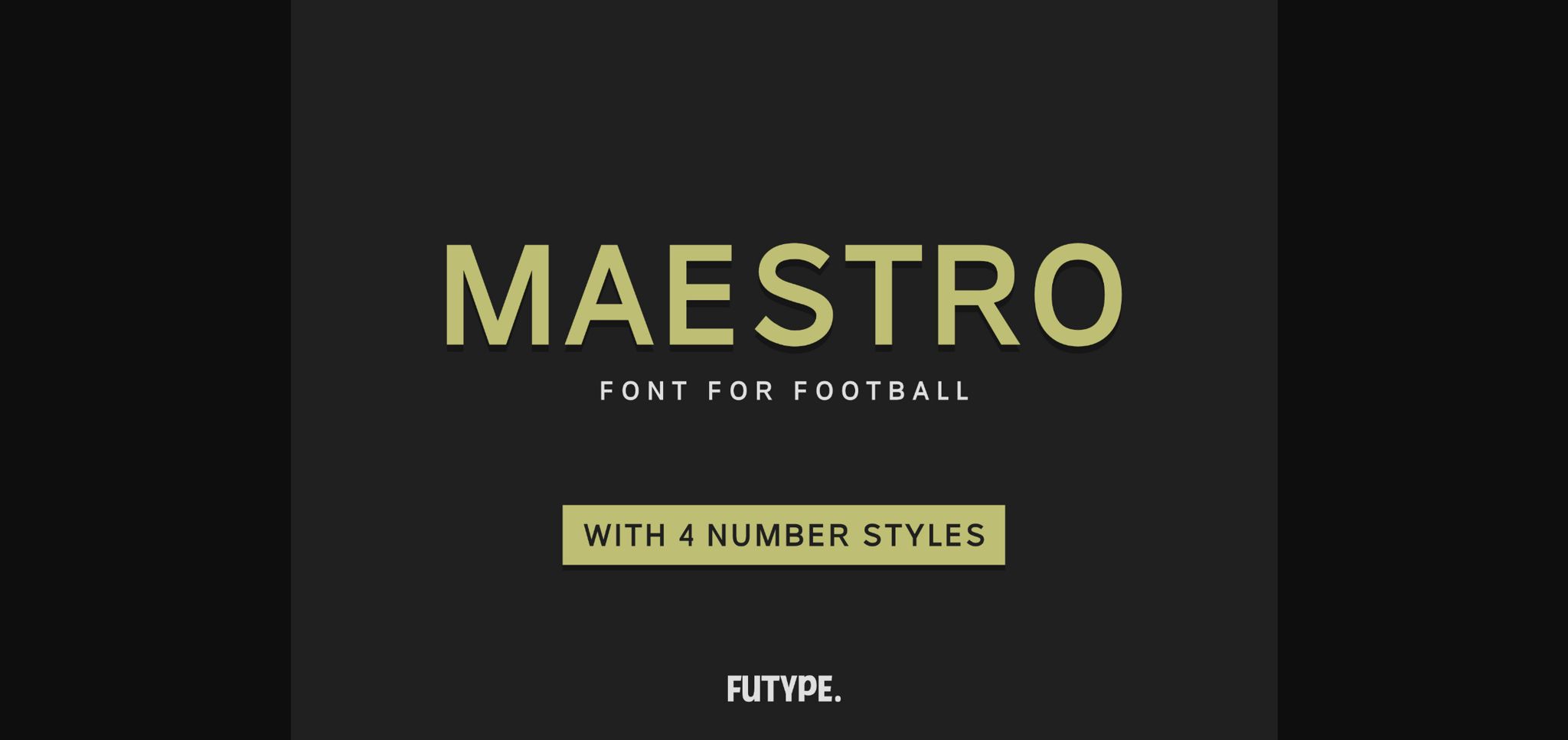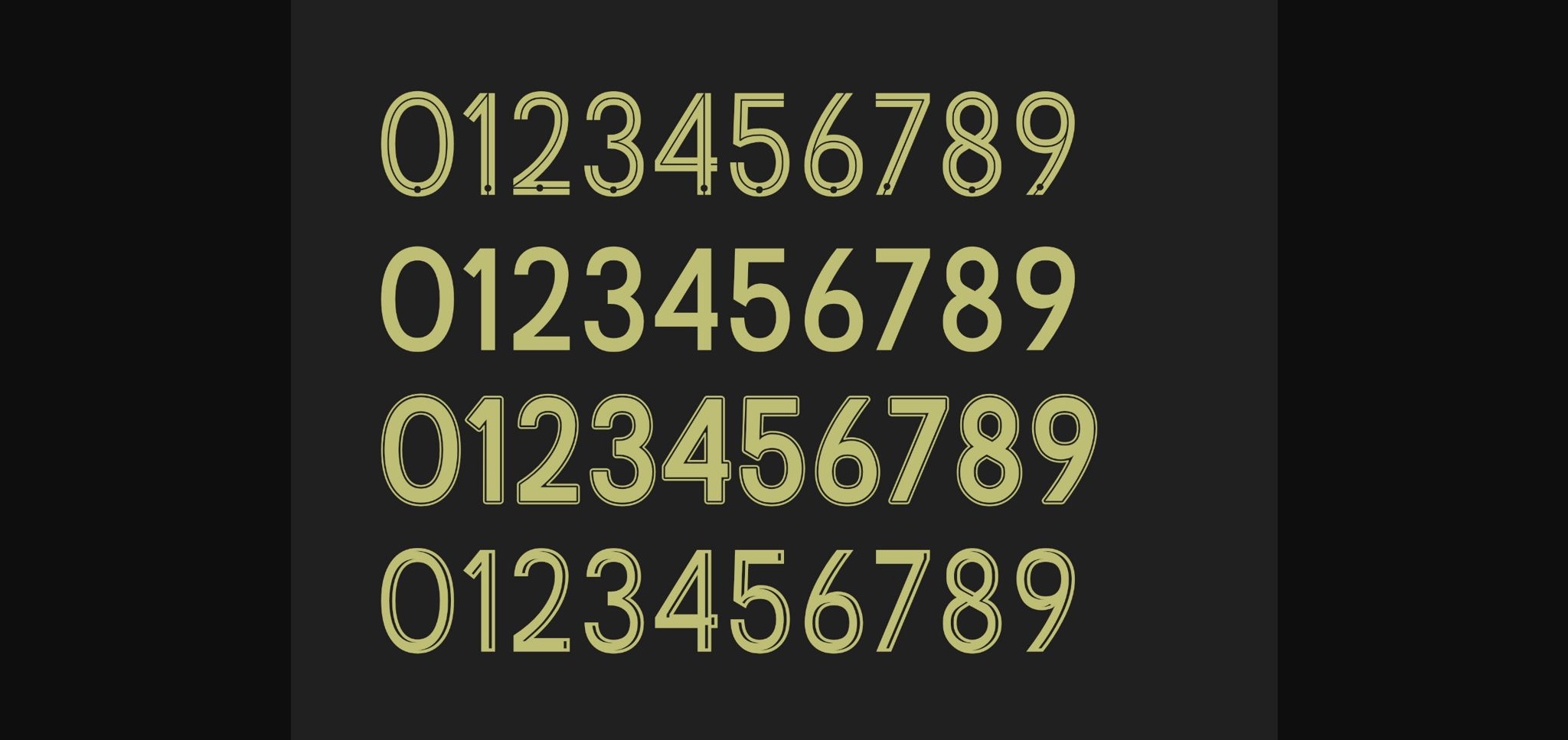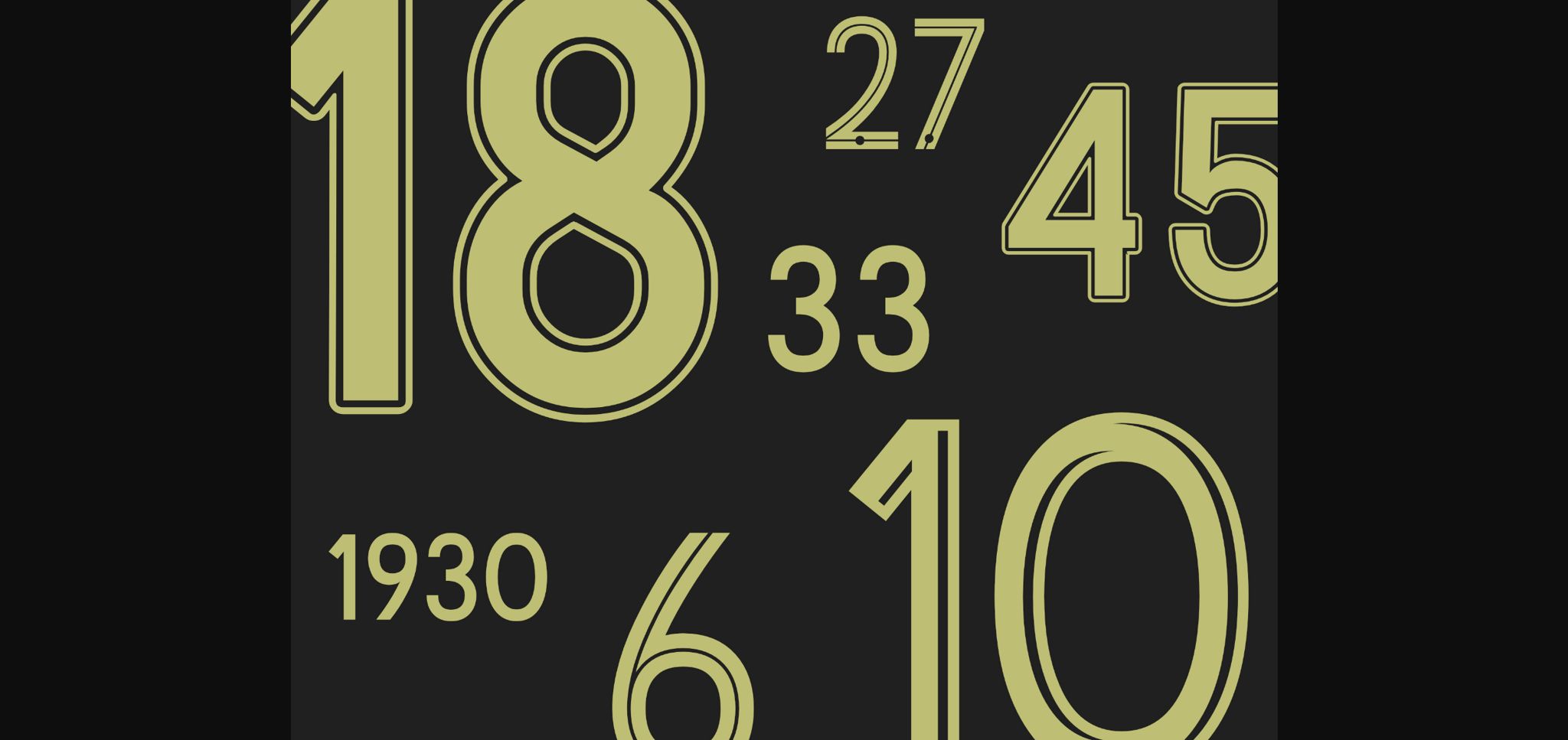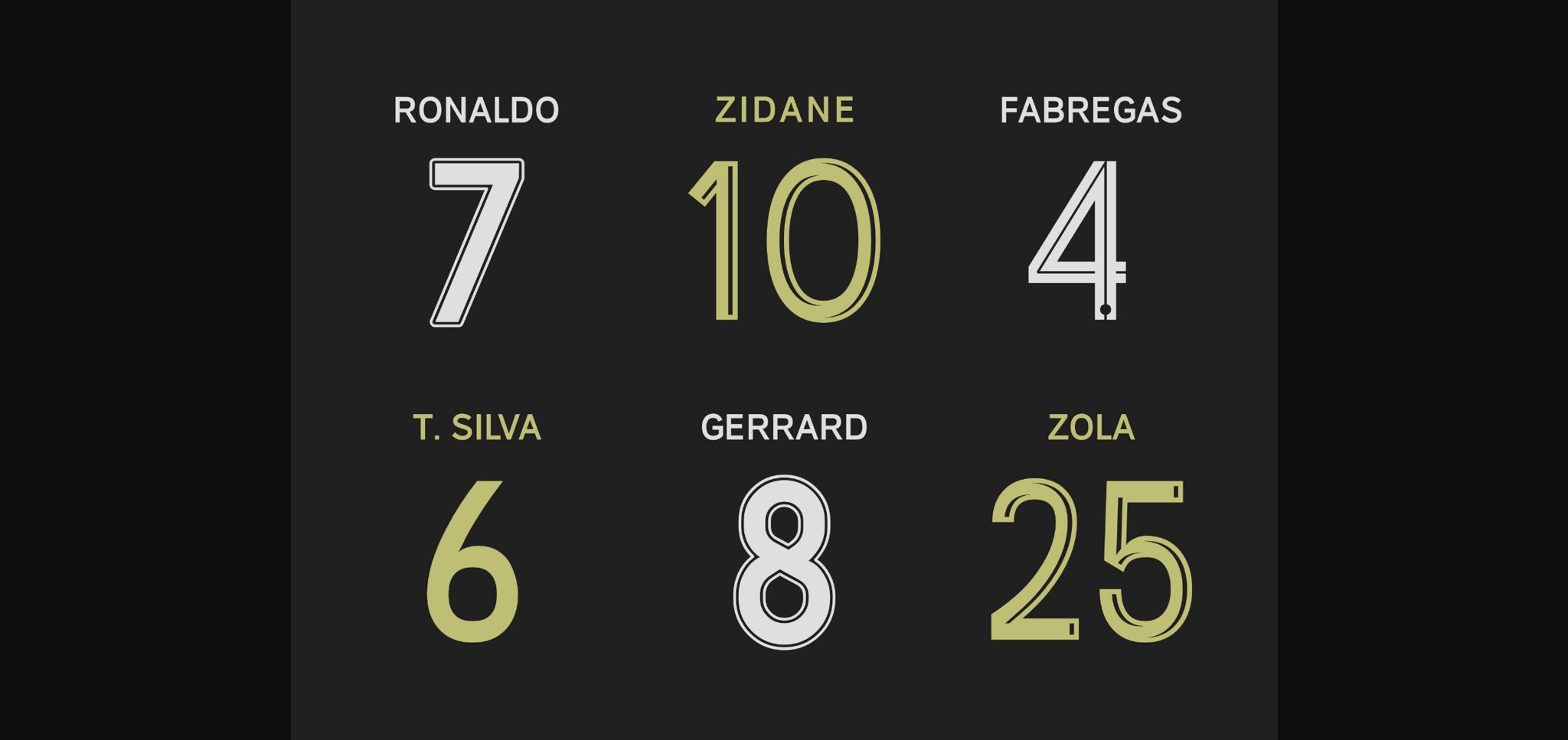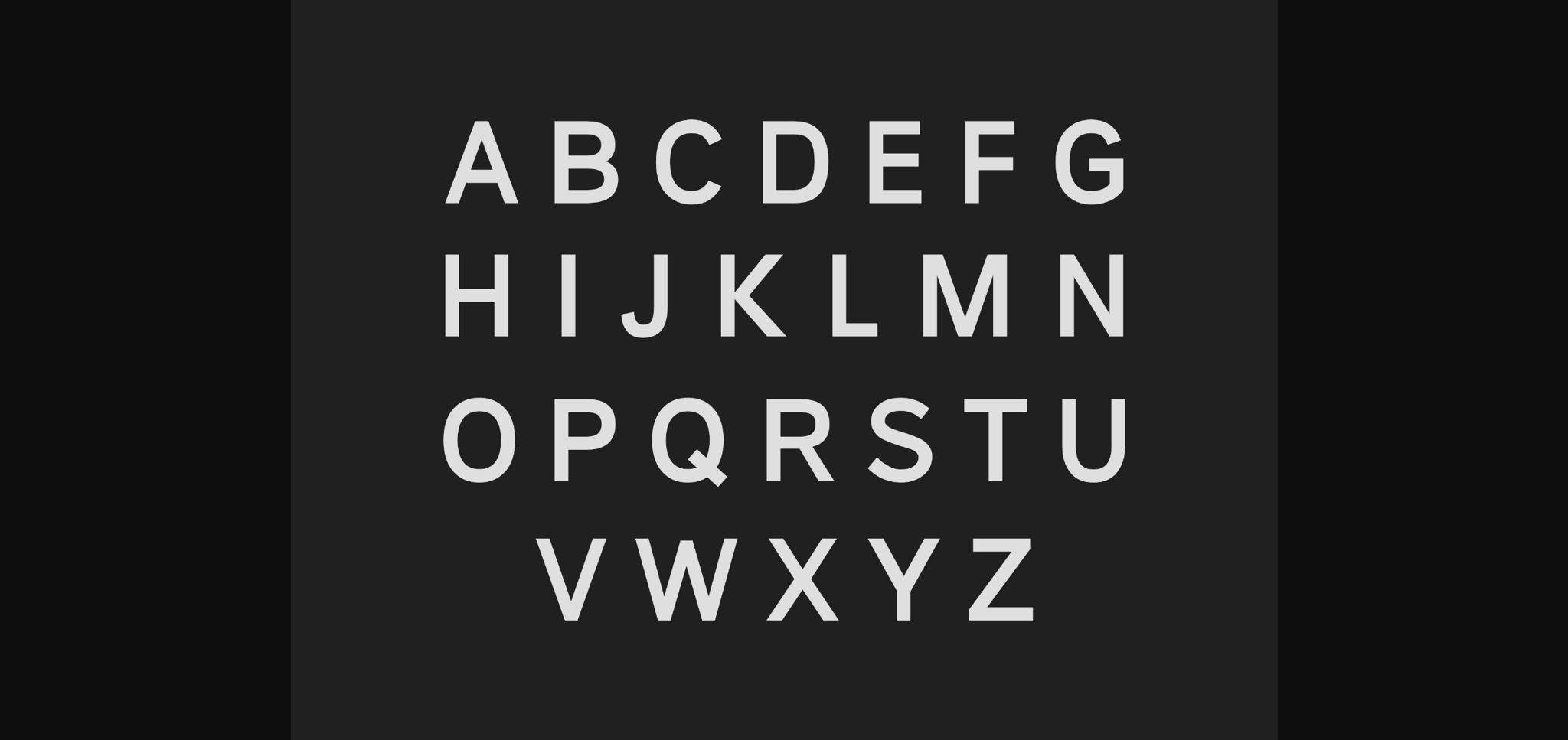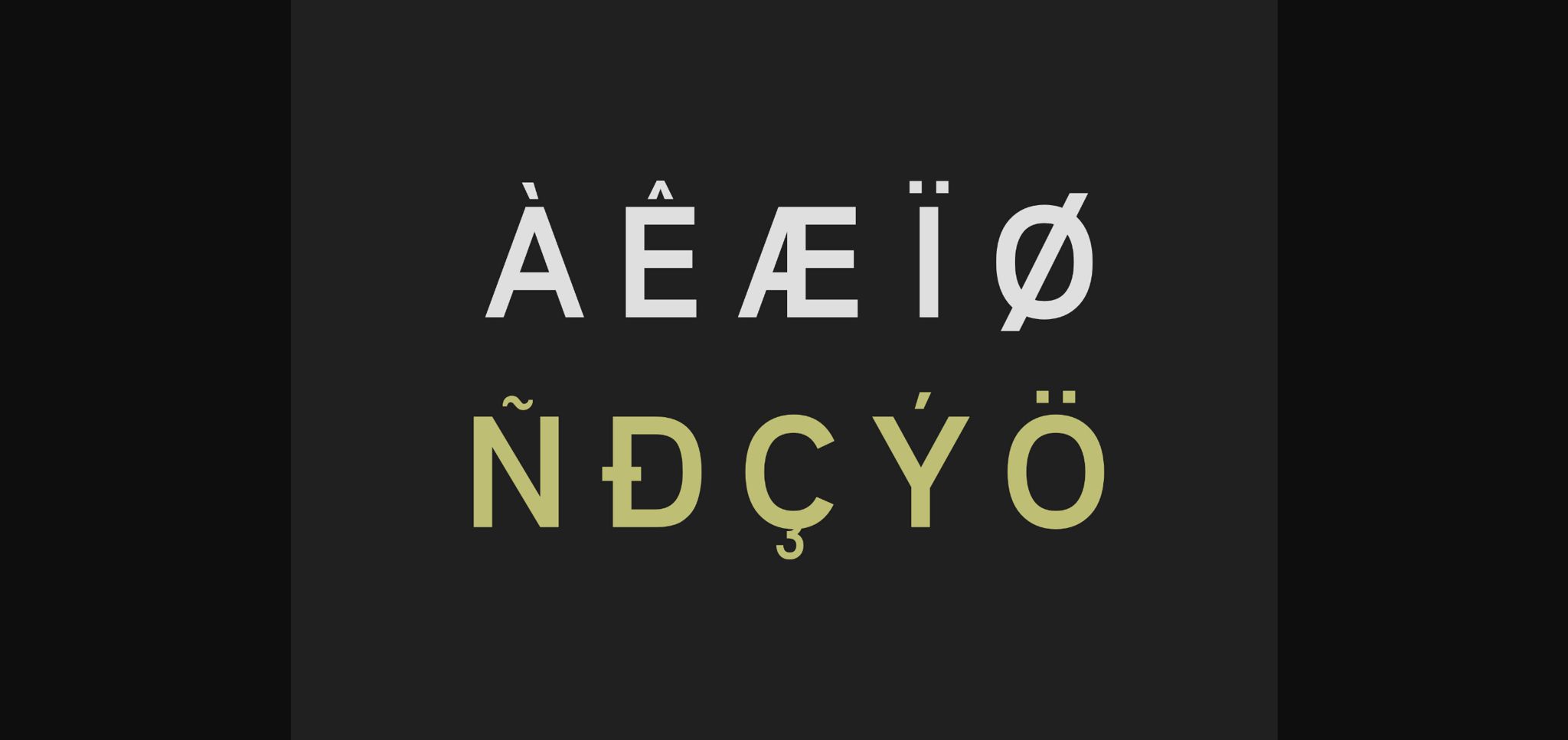
HomeSans Serif FontsMaestro Font Sans Serif Fonts Maestro Font FacebookXPinterestWhatsApp 1 of 8 ... Maestro Font Poster 2... Maestro Font Poster 3... Maestro Font Poster 4... Maestro Font Poster 5... Maestro Font Poster 6... Maestro Font Poster 7... Maestro Font Poster 8... About Maestro Font Maestro is made for football/soccer or other sports jersey number. Using a sans serif font as a base also makes this font good for other purposes. DOWNLOAD NOW People also explored Aloha Summer Font Lemon Summer Font Warm Smile Font Baby Trees Font GummiType AOE Sattelia Font Moon River Font Rainbow Line Font Art House Font 330 0 TagsMaestroMaestro Font Previous articleRelume FontNext articleBrayden Mccoy Font LEAVE A REPLY Cancel reply Comment: Please enter your comment! Name:* Please enter your name here Email:* You have entered an incorrect email address! Please enter your email address here Website: Save my name, email, and website in this browser for the next time I comment. Personal Use Free Lovely Girl Personal Use Free Read more about this font Starter Personal Use Free Read more about this font Adventure Font Personal Use Free Read more about this font Hello Sarrah Personal Use Free Read more about this font BLOG Fonts That Capture the Spirit of New York City New York City is more than just a place—it’s an experience, a rhythm, a visual language... Elegant Wedding Invitation Fonts – Handwritten & Script Fonts Transform Your Website: Elevate Your Typography with 7 Best Web Font Generators How to Cut Any Font on Cricut: Convert a Font to SVG (Free)